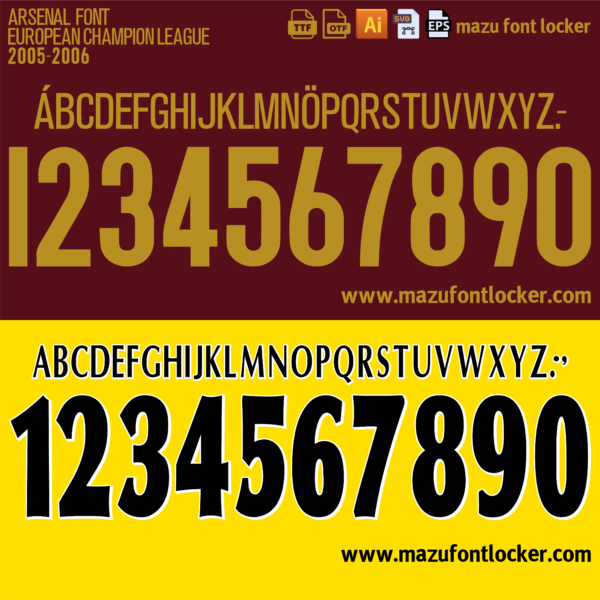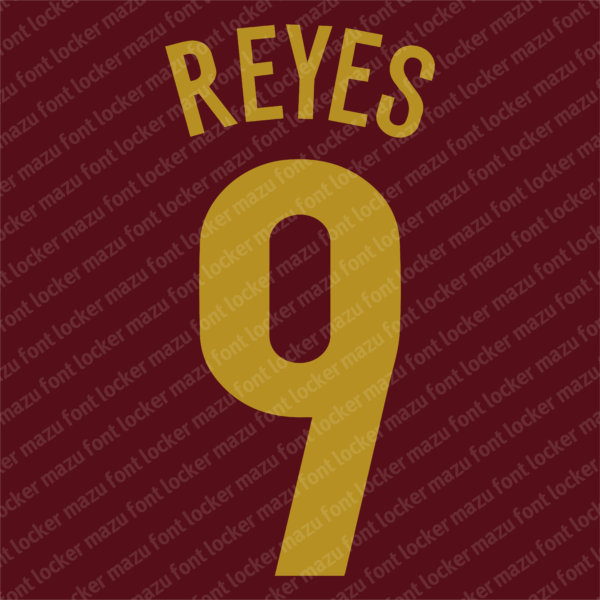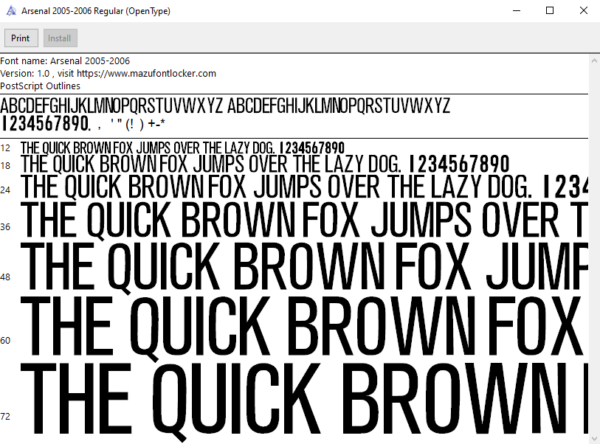
Arsenal 2005-2006 Font Vector – Legendary Invincibles Masterpiece
Download Arsenal 2005-2006 Font now and unleash the pure magic of the Invincibles era straight into your designs. This premium vector font perfectly captures the bold, elegant, and electrifying identity of Arsenal during their unforgettable 2005-2006 season. Every letter and number is crafted with razor-sharp precision, smooth curves, and sophisticated details that reflect the team’s world-class technique, attacking brilliance, and trademark Arsenal flair.
Whether you’re creating matchday posters, fan merchandise, custom jerseys, social media graphics, t-shirts, or premium digital artwork, this Arsenal 2005-2006 Font delivers professional quality with stunning vibrancy and maximum impact. The font masterfully combines modern sophistication with the authentic red and white identity of Arsenal, making every headline pulse with true North London pride and intensity.
Elevate your projects with authentic Invincibles DNA and let your creativity flow like the legendary Arsenal of 2005-2006 at Highbury.
Arsenal 2005-2006 Font Vector
🔥 Arsenal 2005-2006 Font Features
- Authentic 2005-2006 Arsenal jersey lettering style
The authentic lettering style helps recreate the classic look of the Arsenal 2005-2006 kit with professional accuracy.
Unlike generic jersey fonts, this premium set is crafted with obsessive accuracy. Every detail is based on the original match lettering from Arsenal’s historic 2005-2006 Champions League campaign.
The fully scalable vector format gives you flawless quality for any project — whether printing custom jerseys, digital art, posters, or merchandise. Perfect for both professional designers and passionate collectors.
This Arsenal 2005-2006 font vector set is designed for authentic football jersey customization and works perfectly for retro football projects, collector designs, and professional sportswear artwork.